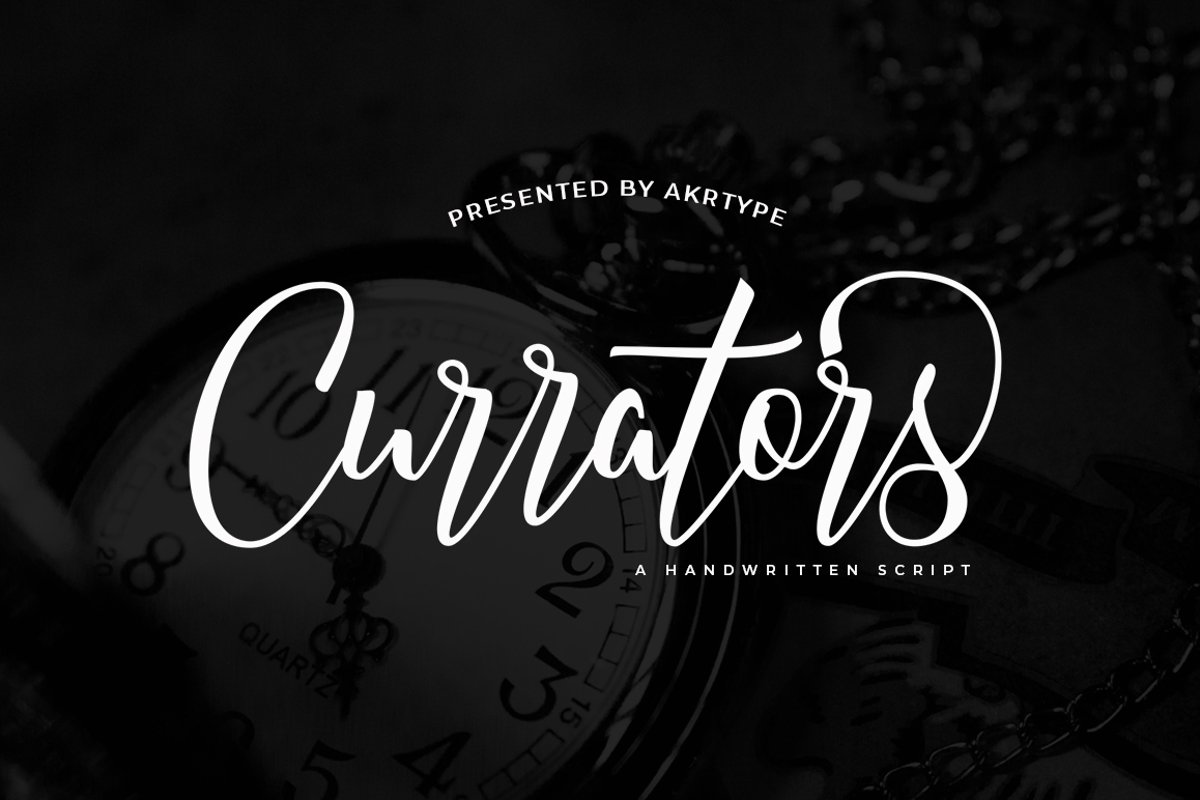
Currators script
Curratorsscript
Currator Script is a handwritten font with a modern twist. Currator Script is a handwritten font meant for vintage logos, fashion labels, custom cards headers, badges, food packaging designs, as there are a lot of fancy letter connections. Currator Script offers a decent amount of stylistic alternatives for many letters.